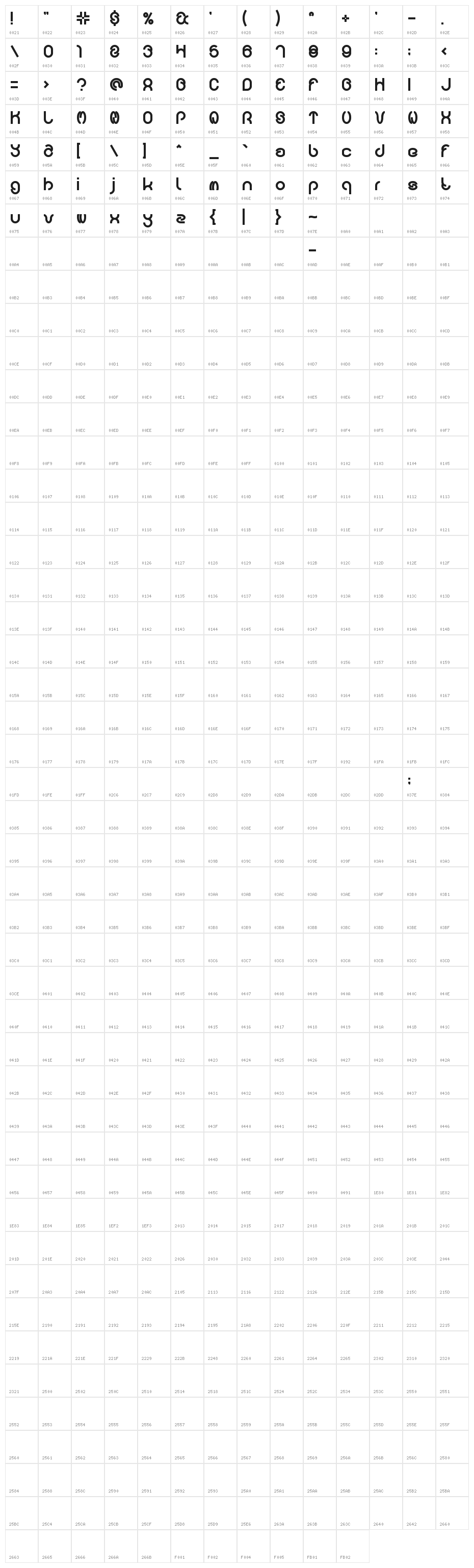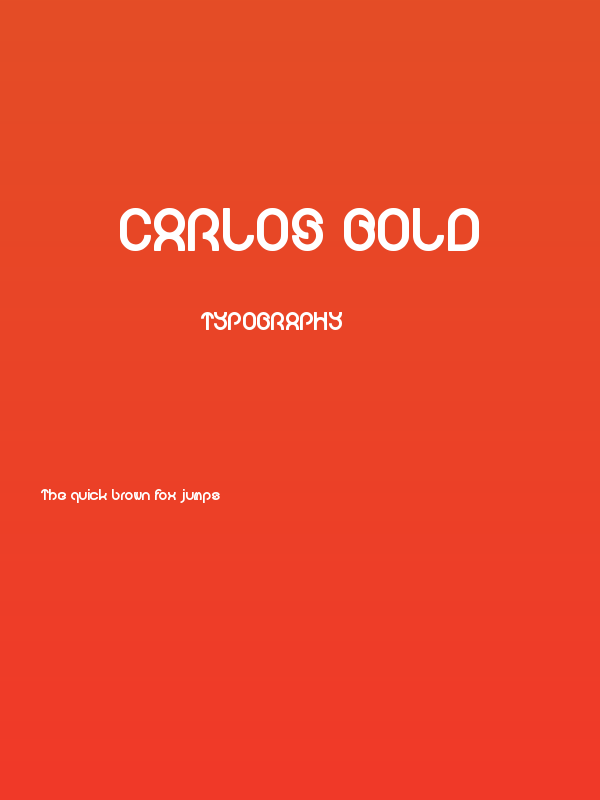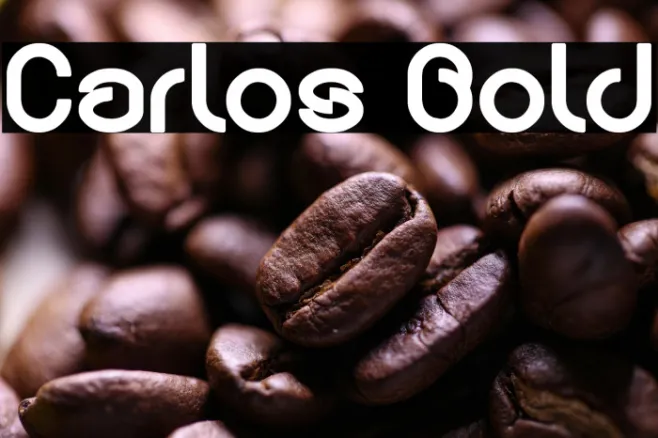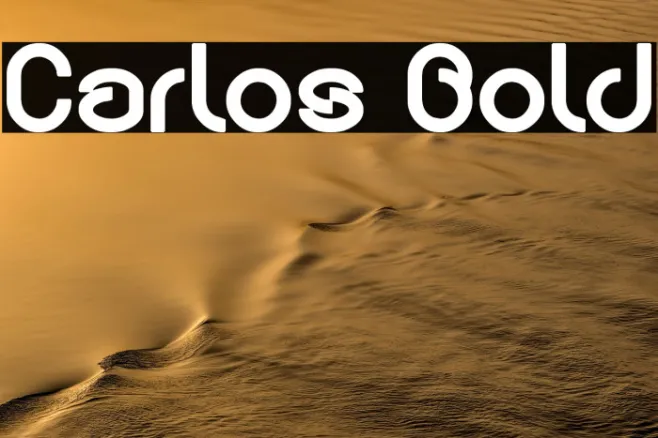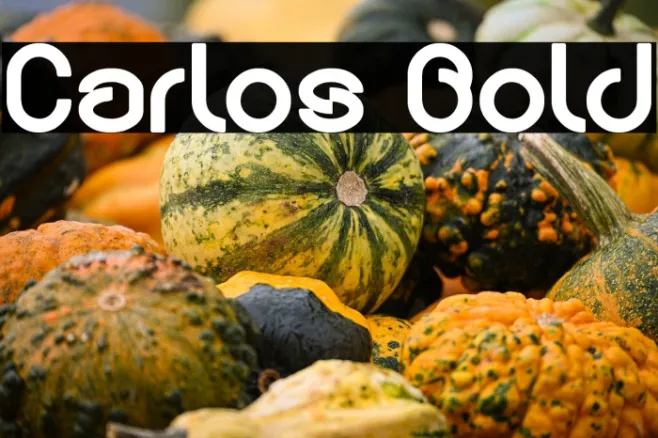
Carlos Bold Font
Carlos Bold Description
This font features a bold and modern design with a unique geometric style. The characters are rounded and have a consistent thickness, giving them a strong and cohesive appearance. The uppercase and lowercase letters maintain a uniform height, creating a balanced and harmonious look. The numbers and special characters are designed to match the overall aesthetic, ensuring a seamless integration across different uses. The font's boldness makes it highly legible and impactful, suitable for various design applications.